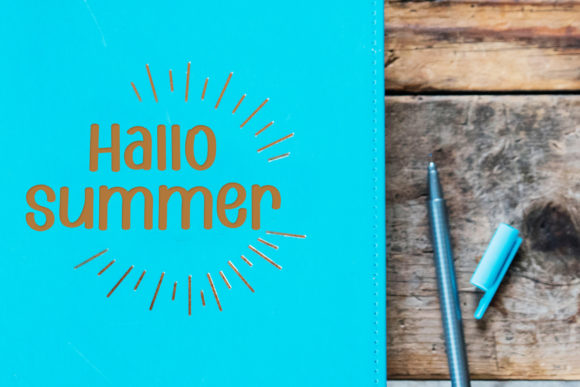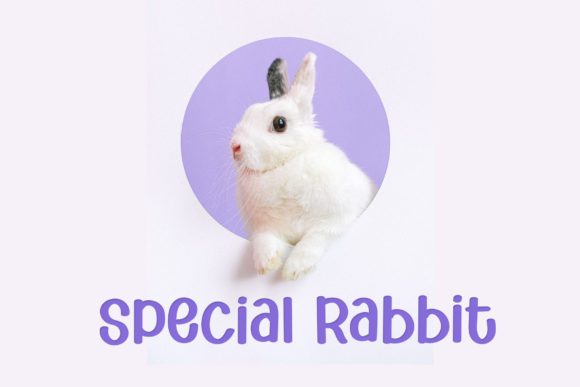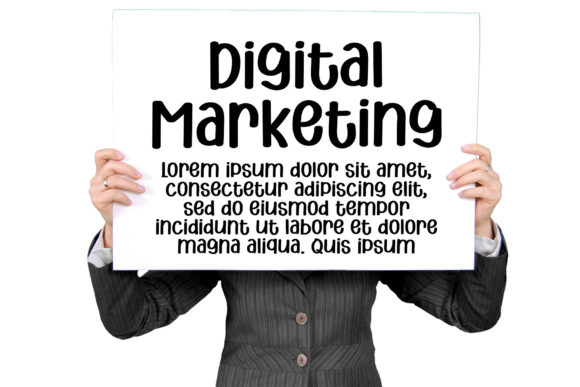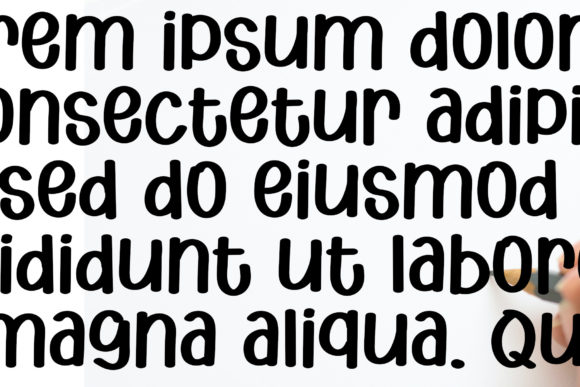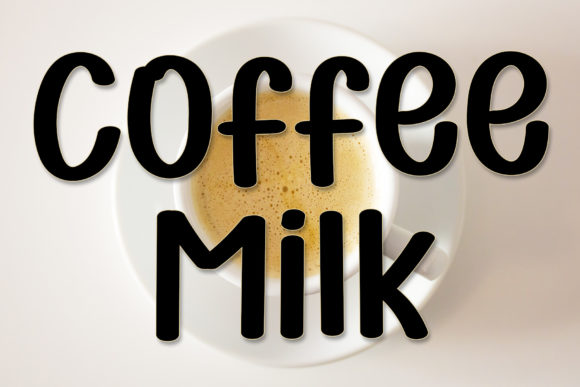
Coffee Milk Font: The Perfect Addition to Your Design Projects
Are you a designer or crafter looking for a font that can add a fun and friendly touch to your projects? Look no further than the Coffee Milk Font. This simple and clean handwritten font is adaptable and can be used on a variety of design ideas, making it a great addition to your font collection.
What is Coffee Milk Font?
Coffee Milk Font is a modern handwritten font that is both elegant and playful. Its clean lines and simple design make it easy to read and versatile for use on a range of projects, from digital designs to print materials. The font’s friendly and approachable style makes it perfect for designs that require a personal touch.
Key Features of Coffee Milk Font
- Simple and Clean Design: The Coffee Milk Font features a simple and clean design that makes it easy to read and use on a variety of projects.
- Handwritten Style: The font’s handwritten style gives it a friendly and approachable feel that’s perfect for designs that require a personal touch.
- Adaptable: The Coffee Milk Font is adaptable and can be used on a range of design ideas, from digital designs to print materials.
- Fun and Friendly: The font’s fun and friendly style makes it perfect for designs that require a playful touch.
Uses of Coffee Milk Font
The Coffee Milk Font is a versatile font that can be used on a range of design projects, including:
- Digital Designs: Use the Coffee Milk Font on digital designs such as social media graphics, blog posts, and website headers.
- Print Materials: The font is perfect for use on print materials such as business cards, brochures, and flyers.
- Crafting Projects: The Coffee Milk Font is a great addition to any crafter’s font collection and can be used on a range of crafting projects, from card making to scrapbooking.
- Branding and Packaging: The font’s friendly and approachable style makes it perfect for use on branding and packaging designs.
Benefits of Using Coffee Milk Font
There are many benefits to using the Coffee Milk Font on your design projects, including:
- Easy to Read: The font’s simple and clean design makes it easy to read, even at small sizes.
- Versatile: The Coffee Milk Font is adaptable and can be used on a range of design ideas.
- Time-Saving: The font’s friendly and approachable style makes it perfect for designs that require a personal touch, saving you time and effort.
- Unique: The Coffee Milk Font is a unique and distinctive font that will help your designs stand out from the crowd.
Tips for Using Coffee Milk Font
Here are some tips for using the Coffee Milk Font on your design projects:
- Use it with a contrasting background: The Coffee Milk Font is a light font, so it’s best to use it with a contrasting background to make it stand out.
- Experiment with different sizes: The font is versatile and can be used at a range of sizes, from small to large.
- Pair it with other fonts: The Coffee Milk Font can be paired with other fonts to create a unique and interesting design.
The Coffee Milk Font is a simple and clean handwritten font that is perfect for designers and crafters looking for a fun and friendly font to add to their projects. Its adaptable design and easy-to-read style make it a great addition to any font collection. Whether you’re working on digital designs, print materials, or crafting projects, the Coffee Milk Font is a versatile font that is sure to become a favorite.